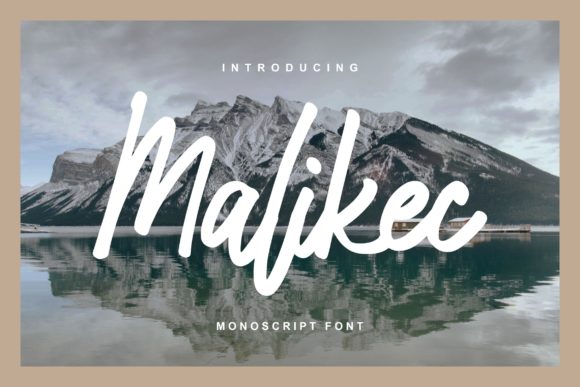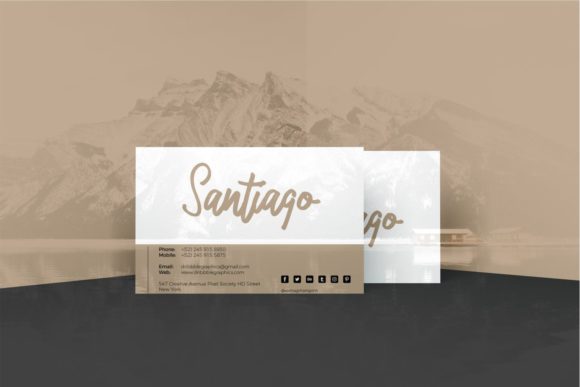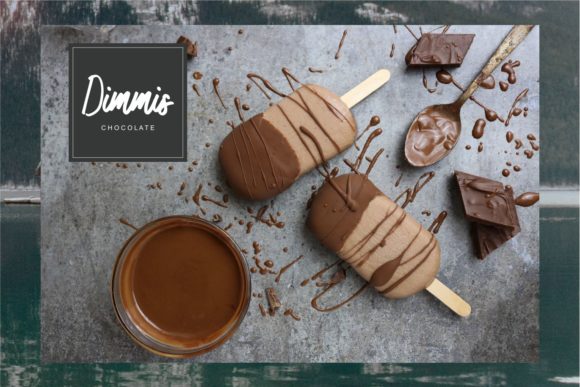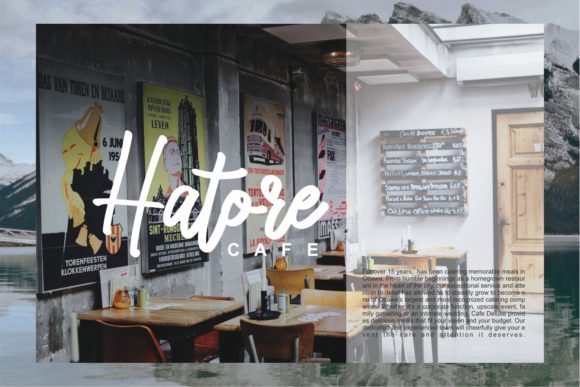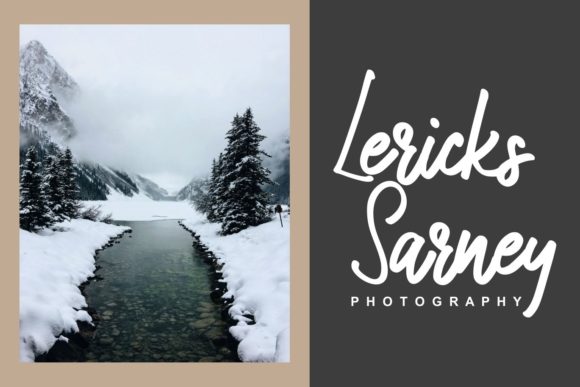
About Malikec Font
Malikec is a magical handwritten font carefully created with a touch of elegance. This is a beautiful combination of timeless elegance and authentic calligraphy. It features an incredibly classic style, while still keeping a friendly feel. Malikec is the perfect font for making original and outstanding designs.